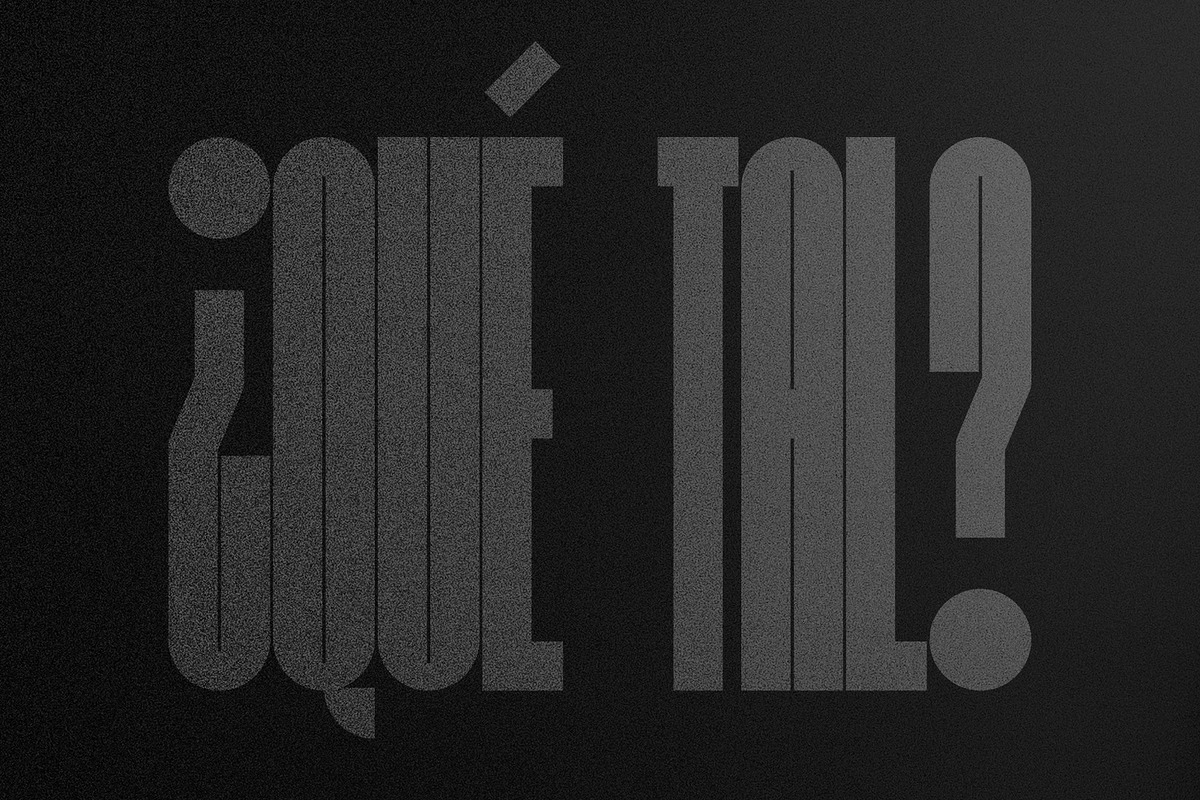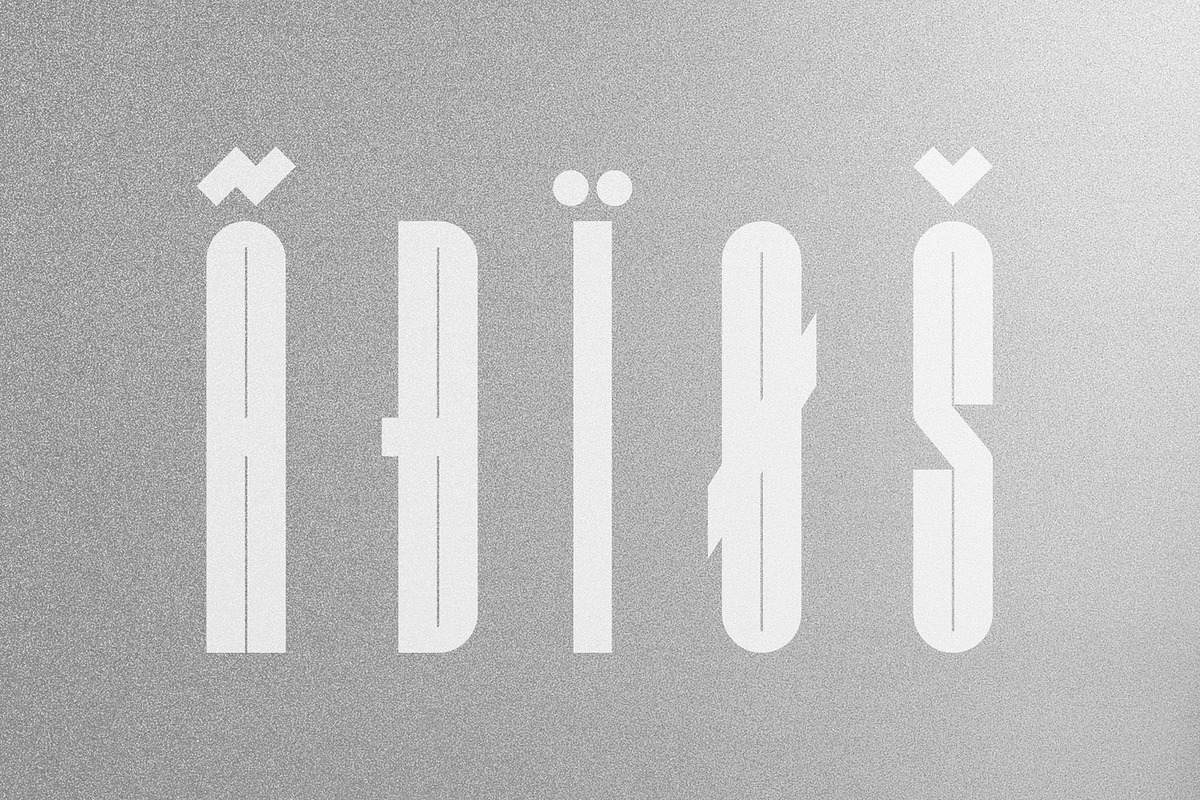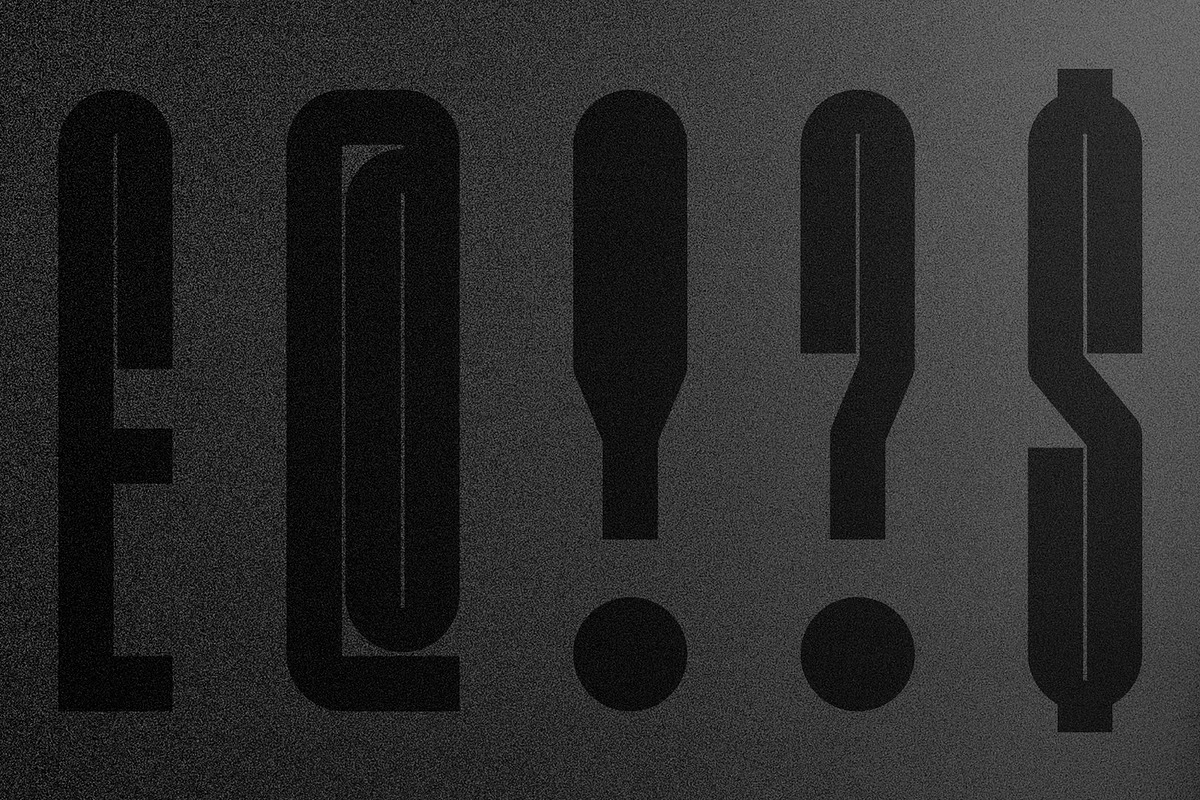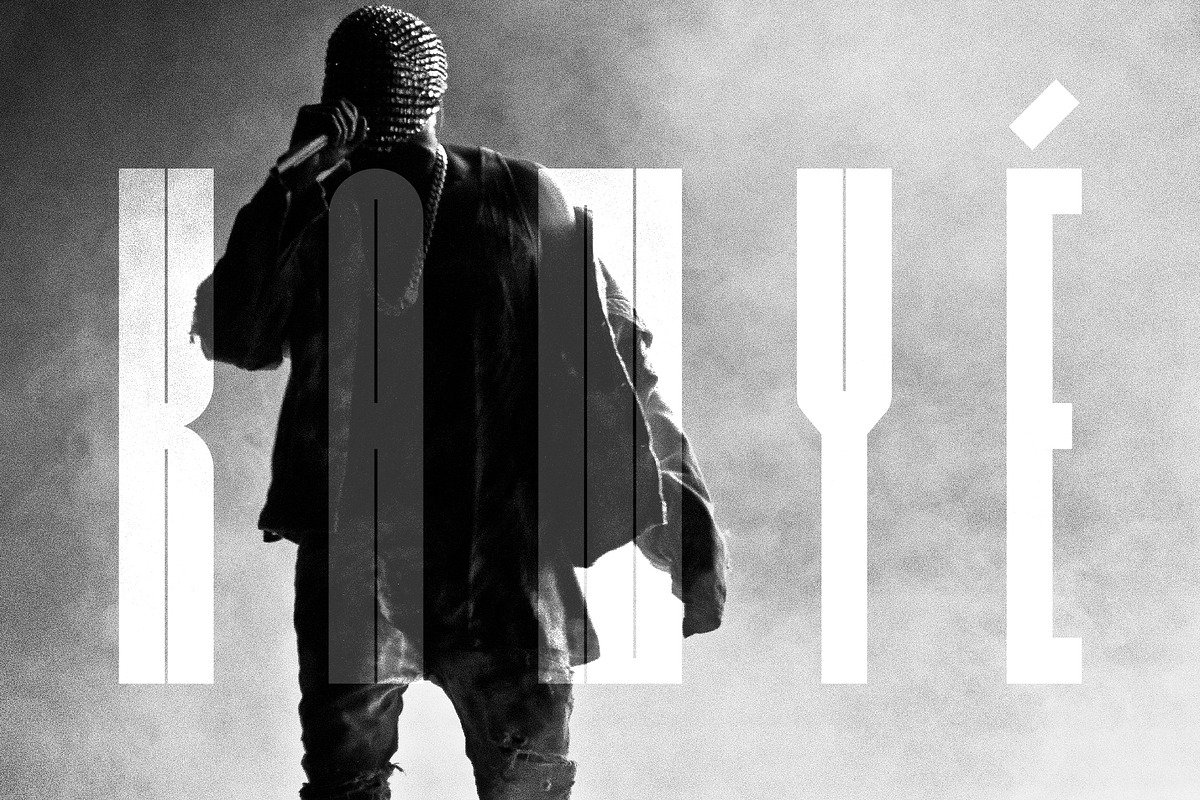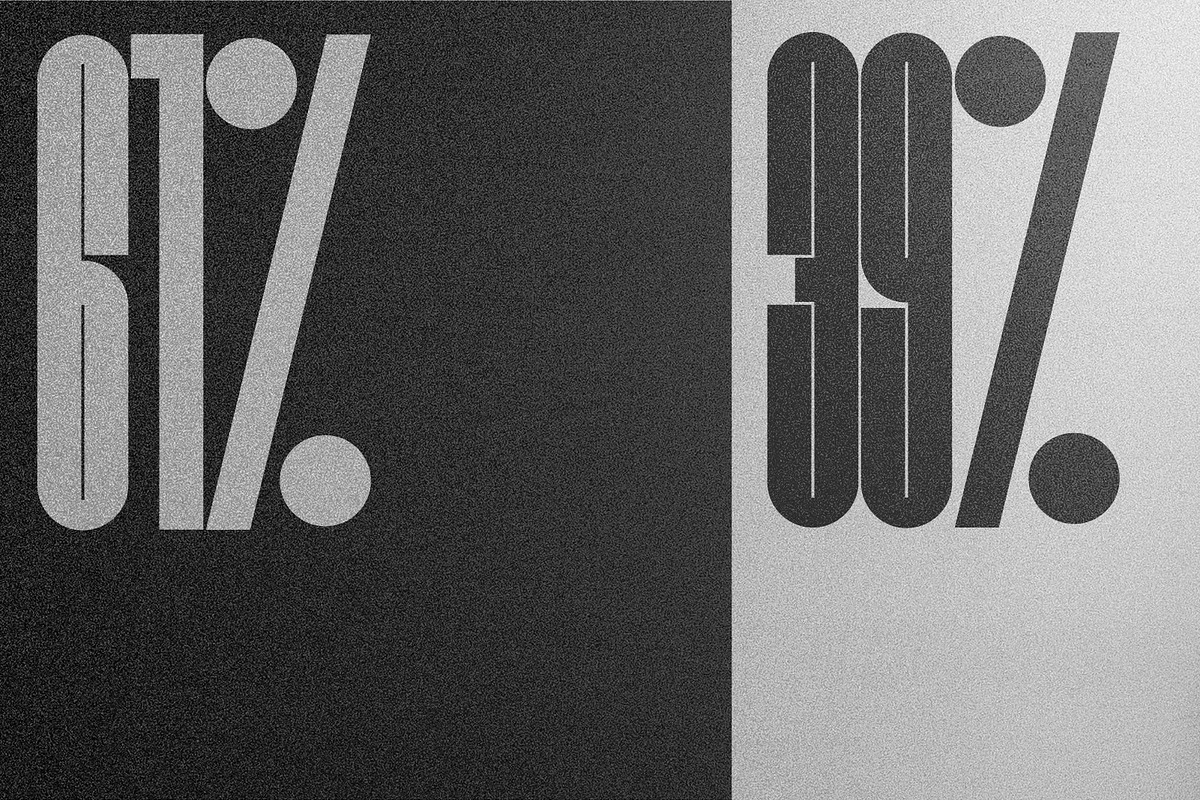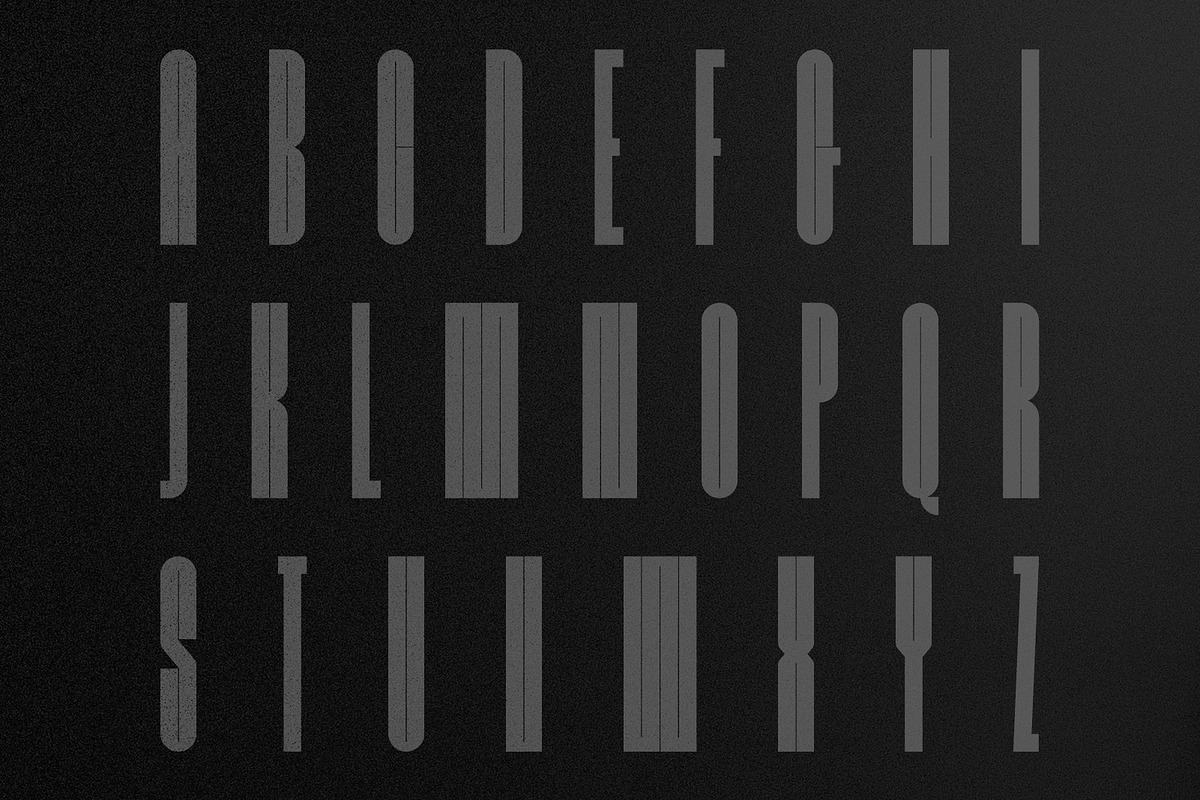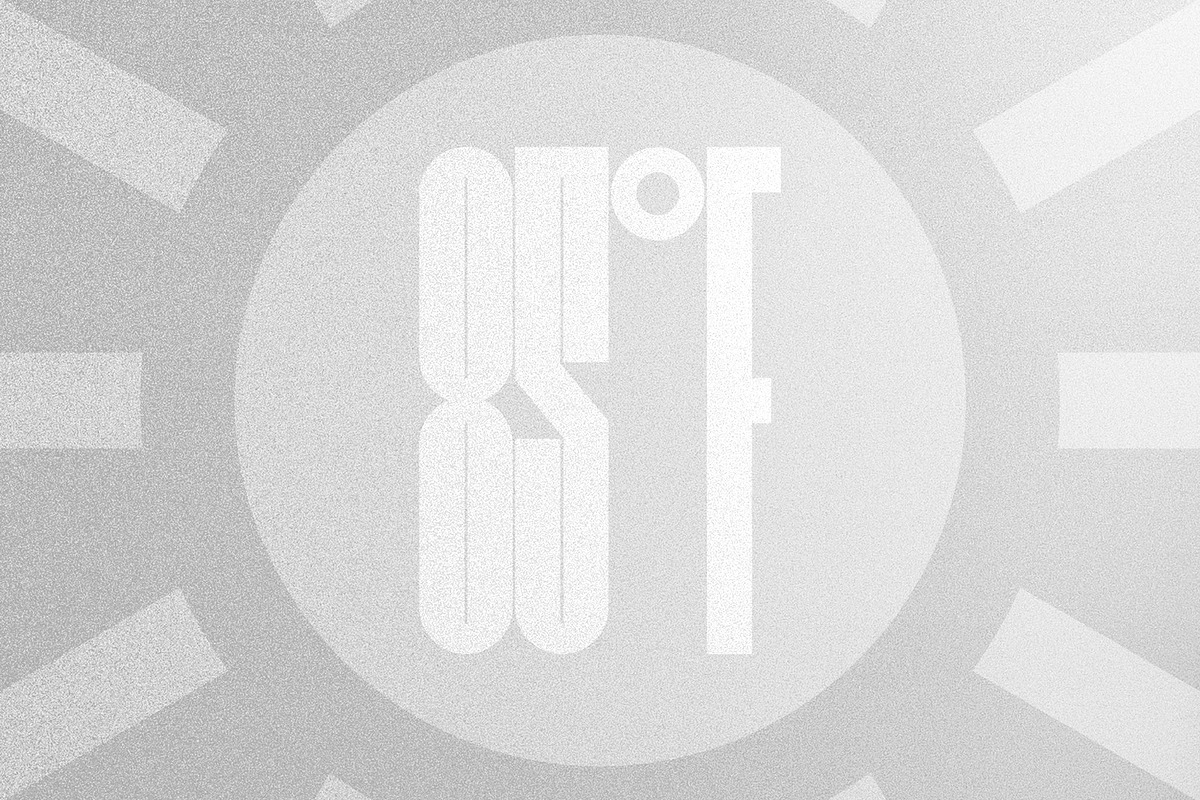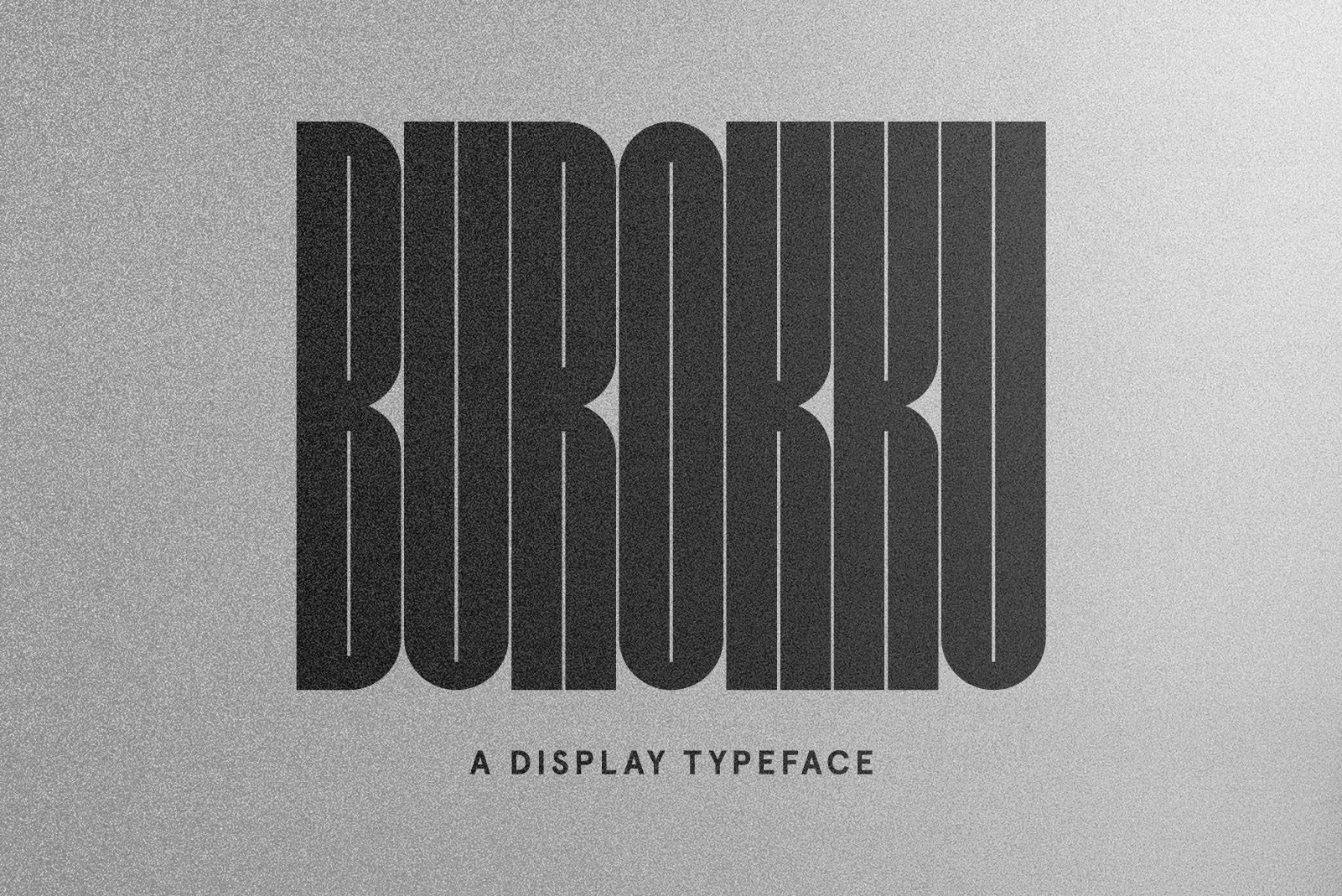
Burokku Bold Display Font
Burokku is a bold, unique display typeface perfect for big, expressive titles.
Plenty of interesting glyphs to play around with and a number of languages supported.